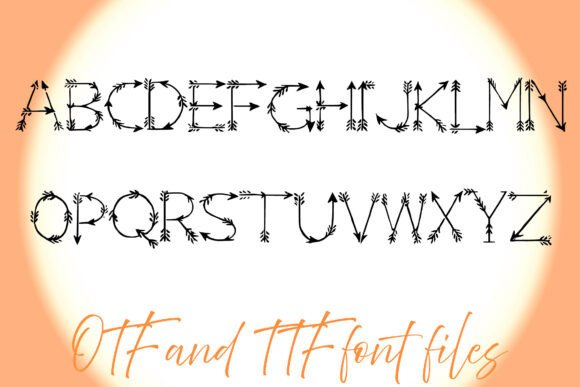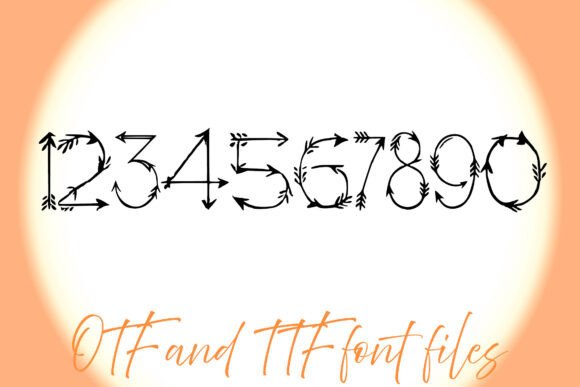
Bringing a Touch of Wild Spirit to Your Designs with the Arrow Font
I still remember the design project that led me to discover the Arrow Font. I was working on a branding project for an outdoor gear company, and my client specifically asked for a font that would evoke a sense of adventure and playfulness. I scoured the internet for the perfect typeface, but nothing seemed quite right – until I stumbled upon the Arrow Font. Crafted entirely from whimsical arrow motifs, this hand-drawn decorative typeface was exactly what I needed to bring a touch of wild spirit to my design.
A Personal Review of the Arrow Font
So, what makes the Arrow Font so special? Let’s dive into the good stuff! 😊
• ✨ Unique and eye-catching design: Each letter is built with whimsical arrow motifs, making it perfect for tribal themes, adventurous branding, or creative children’s projects.
• ✅ Highly versatile: The Arrow Font can be used for a wide range of design projects, from logos and branding to posters and social media graphics.
• 💡 Inspires creativity: The font’s playful design will spark your imagination and help you come up with innovative ideas for your projects.
Of course, no font is perfect, and the Arrow Font has a few quirks to keep in mind:
• 🤔 Legibility at small sizes: Due to its decorative nature, the Arrow Font may not be the best choice for body text or small font sizes.
• ⚠️ Limited use cases: While the font is highly versatile, it may not be suitable for more formal or professional designs.
The Story Behind the Arrow Font
The Arrow Font was designed by a creative team with a passion for adventure and typography. Inspired by the great outdoors, they set out to create a font that would capture the spirit of exploration and playfulness. After months of design and refinement, the Arrow Font was born – a unique and eye-catching typeface that’s perfect for designers, crafters, and creative hobbyists.
Font Name Arrow Font
Author squeebcreative
Q: What type of designs is the Arrow Font best suited for?
A: The Arrow Font is perfect for tribal themes, adventurous branding, creative children’s projects, and any design that requires a touch of playfulness and whimsy.
Q: Is the Arrow Font available in different styles or weights?
A: Currently, the Arrow Font is available in a single style. However, the design team may release additional styles or weights in the future.